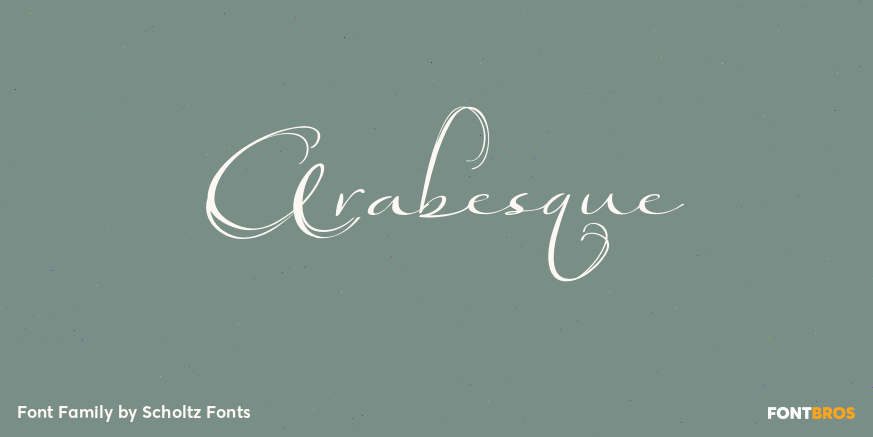
Arabesque
About Arabesque
Arabesque is a romantic, ornamental font, in which intertwining, flowing lines and generous loops enhance the beauty of the basic shapes. Arabesque successfully combines legibility with a decorative, sumptuous style. In its European interpretation it…